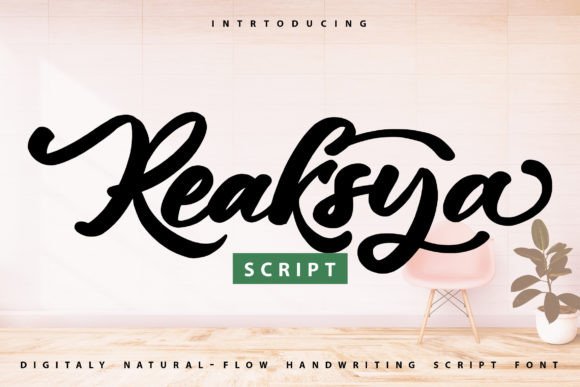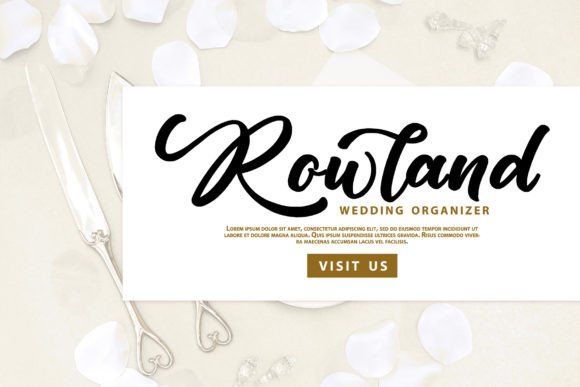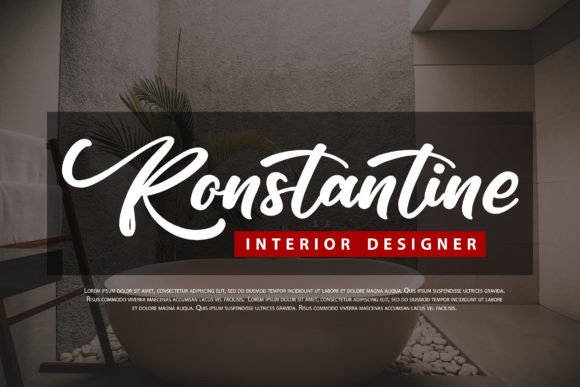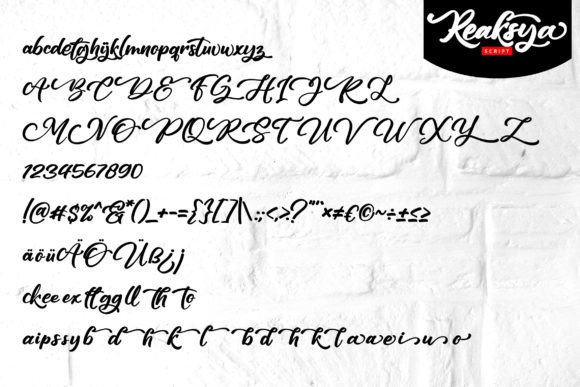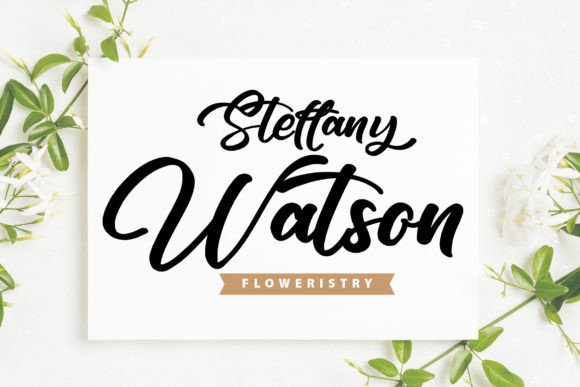
Reaksya Font
Introducing Reaksya, an exquisite script font that is meticulously crafted and highly detailed. This font is a wonderful asset to your font library, as it has the potential to enhance any creation, regardless of the topic.
The detailed and carefully crafted nature of Reaksya makes it a versatile choice for a variety of design applications. Whether you’re working on branding materials, invitations, product packaging, or any creative project, Reaksya is designed to add a touch of elegance and sophistication.
The fact that this font is PUA encoded is an added advantage, allowing you to access all glyphs and swashes with ease. This feature provides flexibility in using different characters and swashes, enhancing your ability to create unique and personalized designs.
Consider using Reaksya to create eye-catching branding materials, add an elegant touch to your invitations, or enhance the visual appeal of product packaging. The detailed and exquisite style of Reaksya ensures that your text stands out with sophistication and charm.
In essence, Reaksya is more than just a font; it’s a design tool that brings a level of detail and elegance to your projects. Let it be the script font that enhances your creations, making them exquisite and truly captivating.